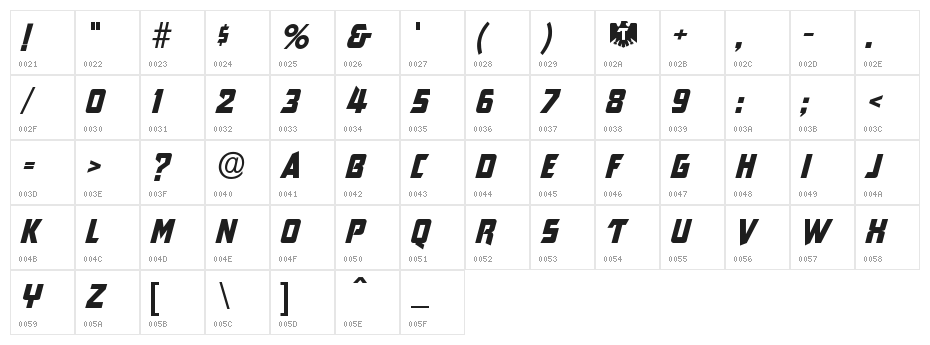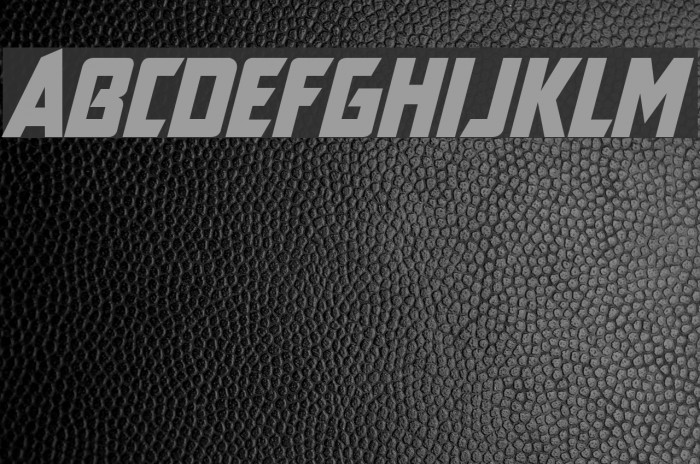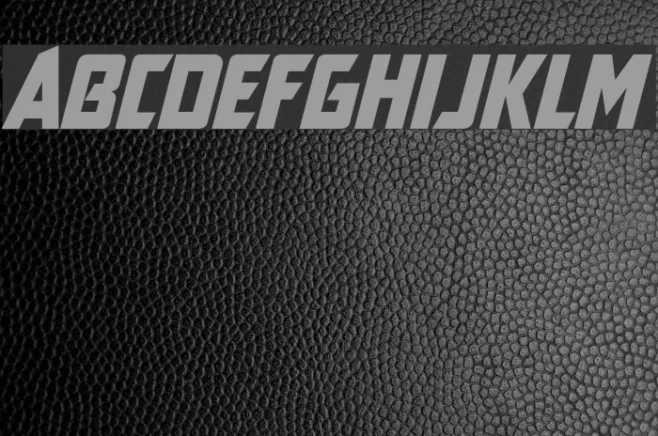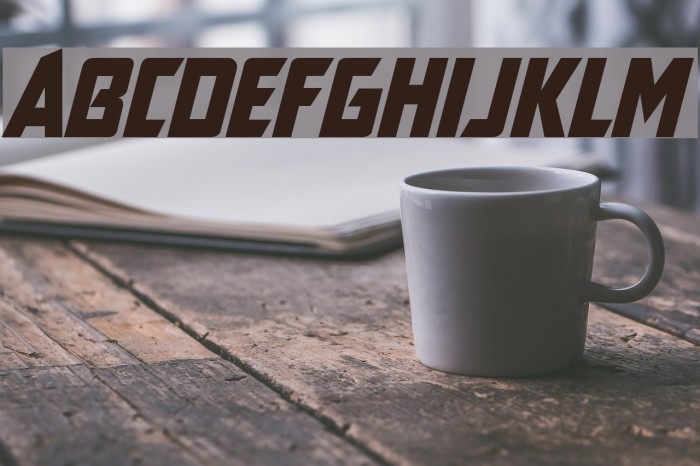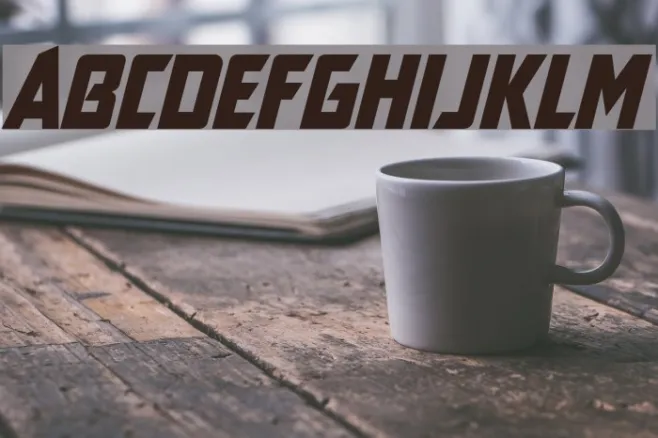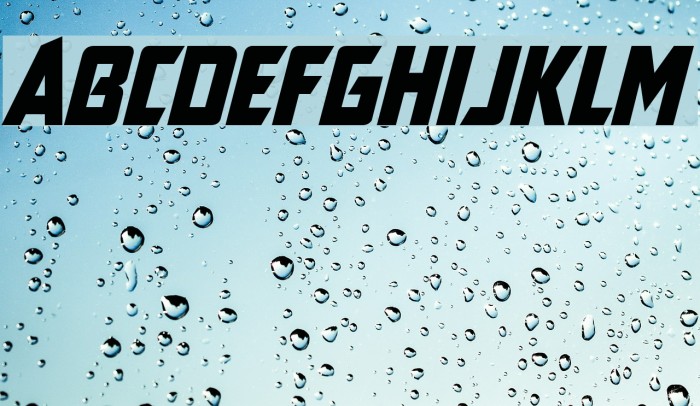
Tecate Font
Tecate Description
This font features a bold, dynamic style with a strong presence. The characters are slightly italicized, giving them a sense of motion and energy. The strokes are thick and consistent, providing a robust and impactful appearance. The uppercase letters are particularly striking, with sharp angles and a slightly condensed form that enhances their boldness. The numerals and special characters maintain the same bold and dynamic style, ensuring consistency across all elements. This font is designed to capture attention and convey a sense of strength and modernity.